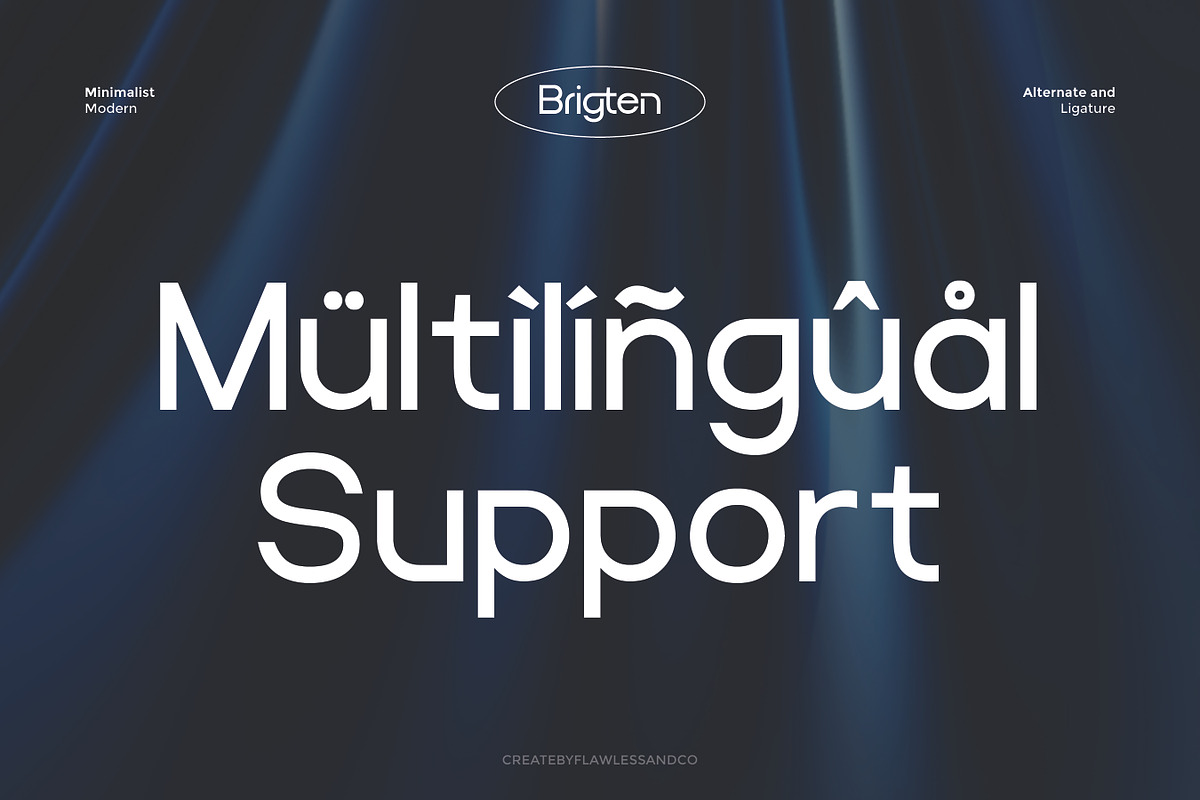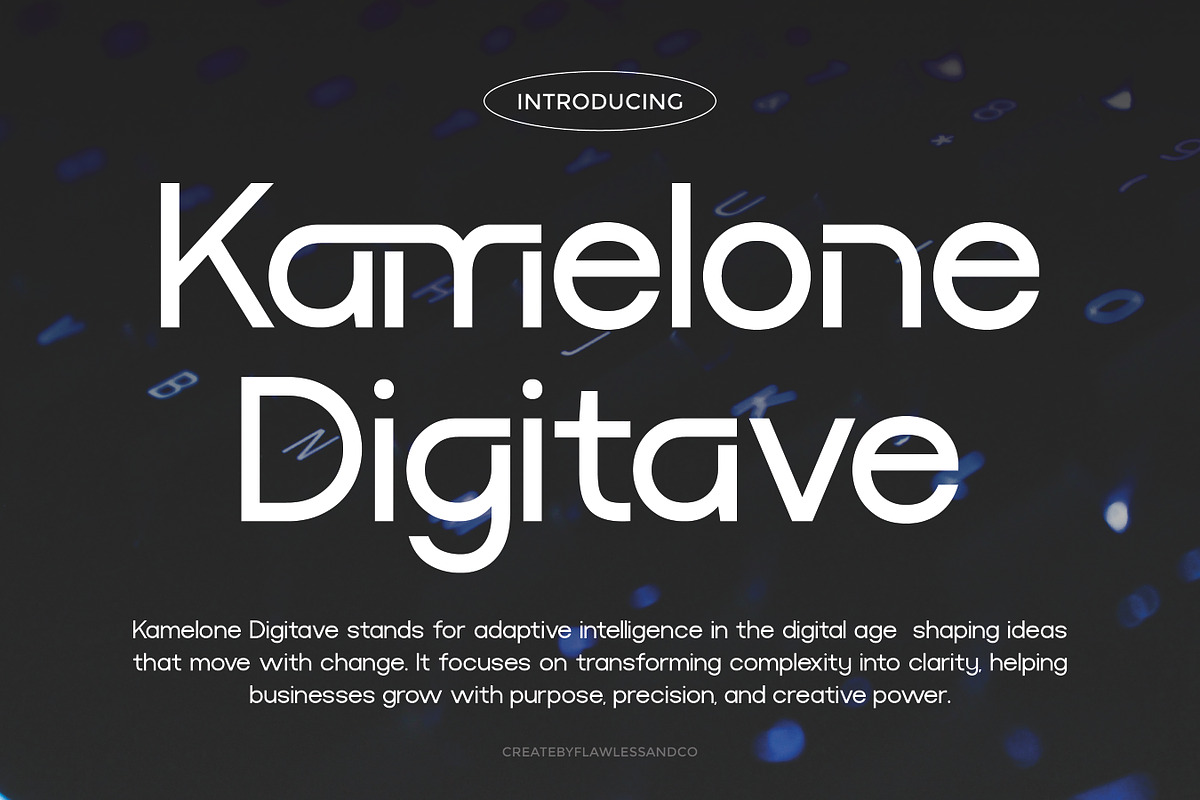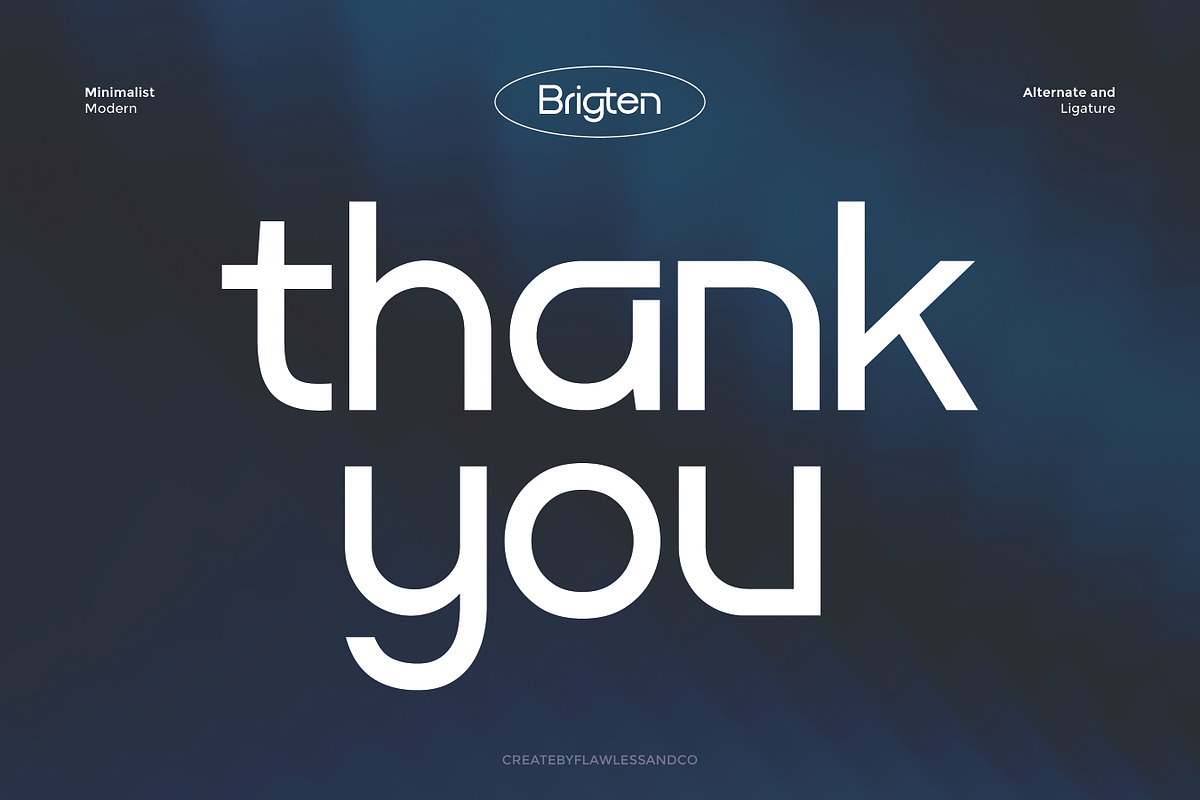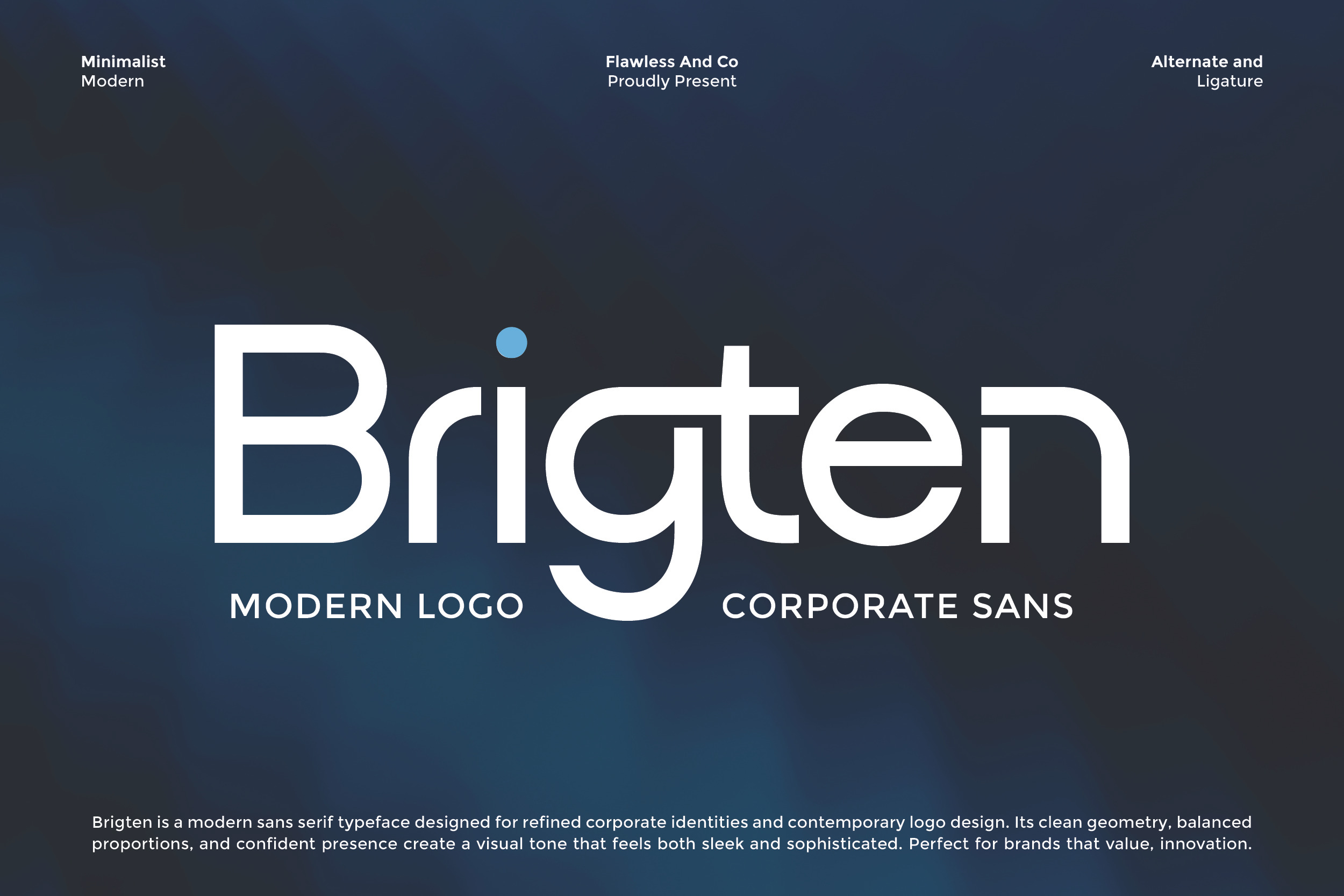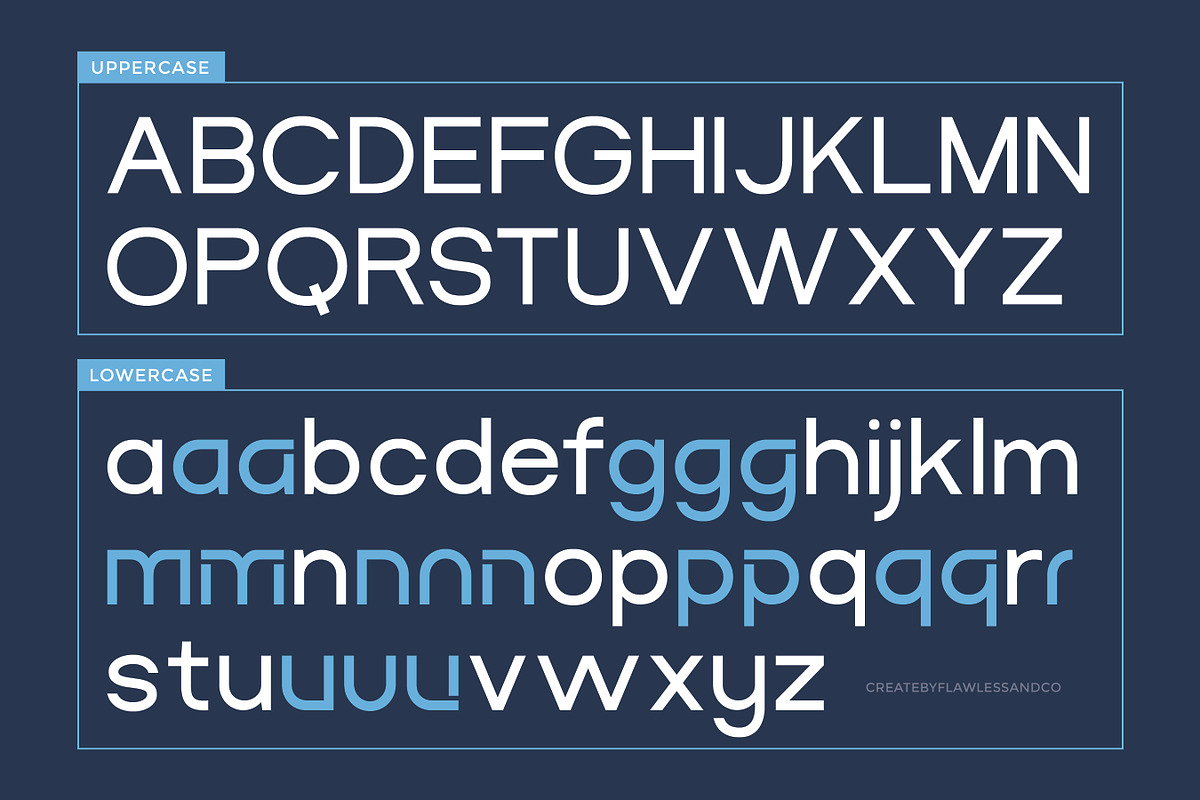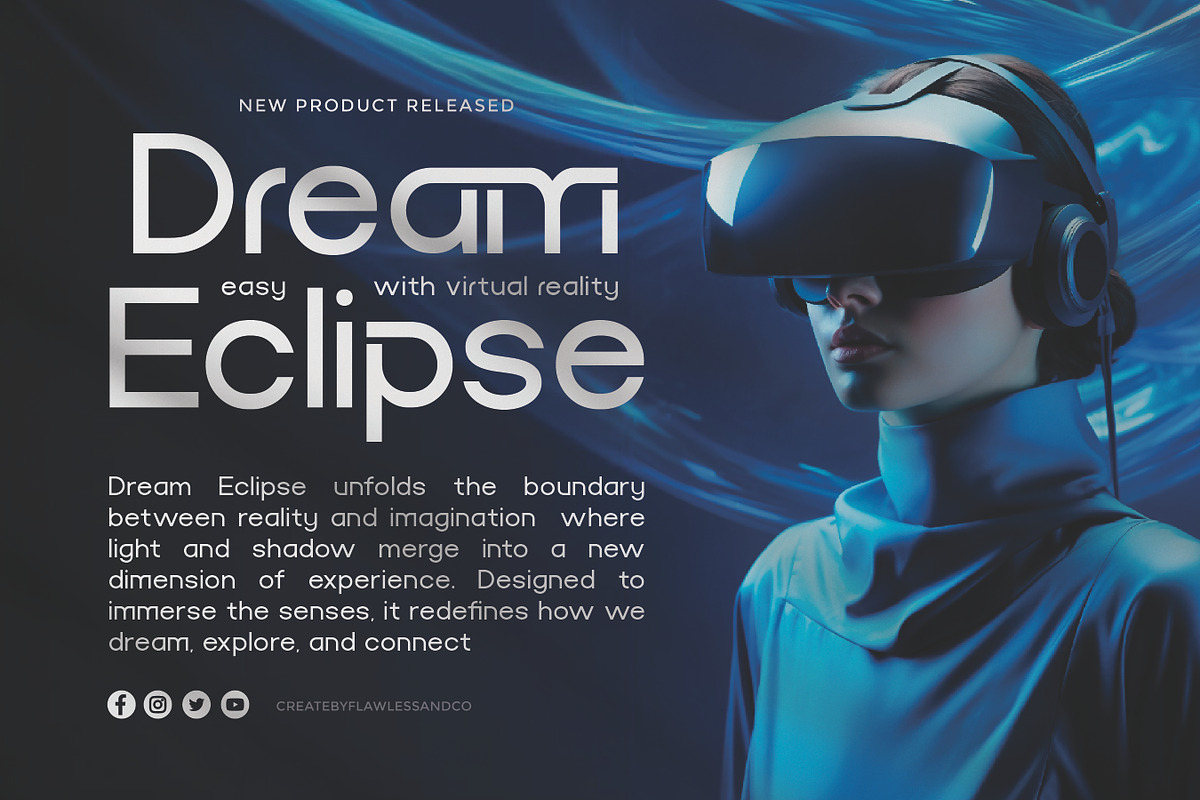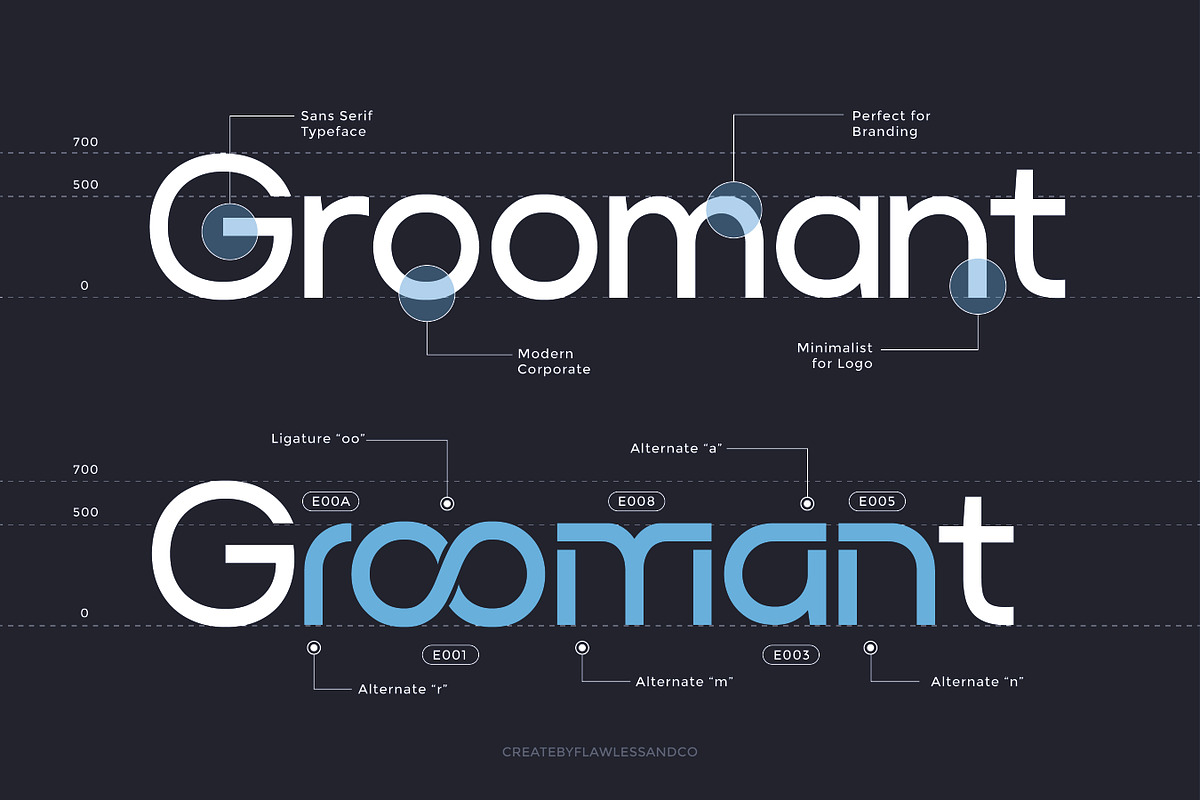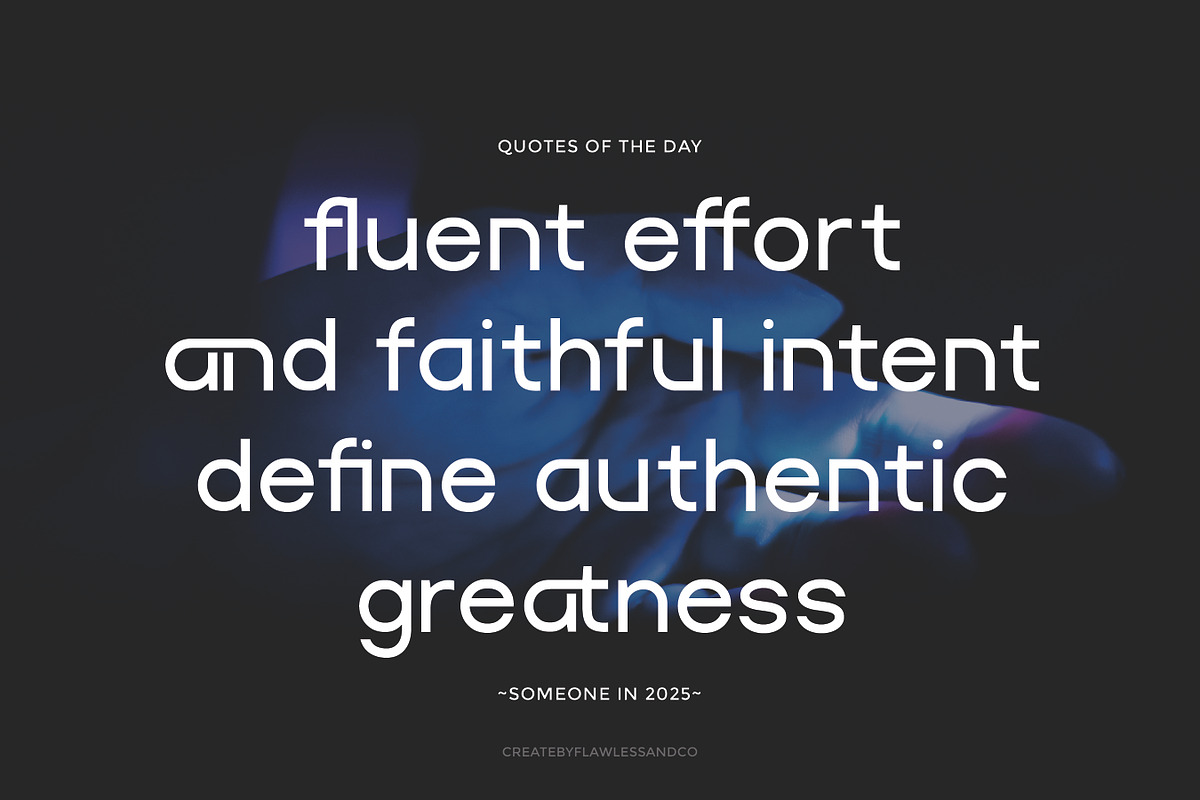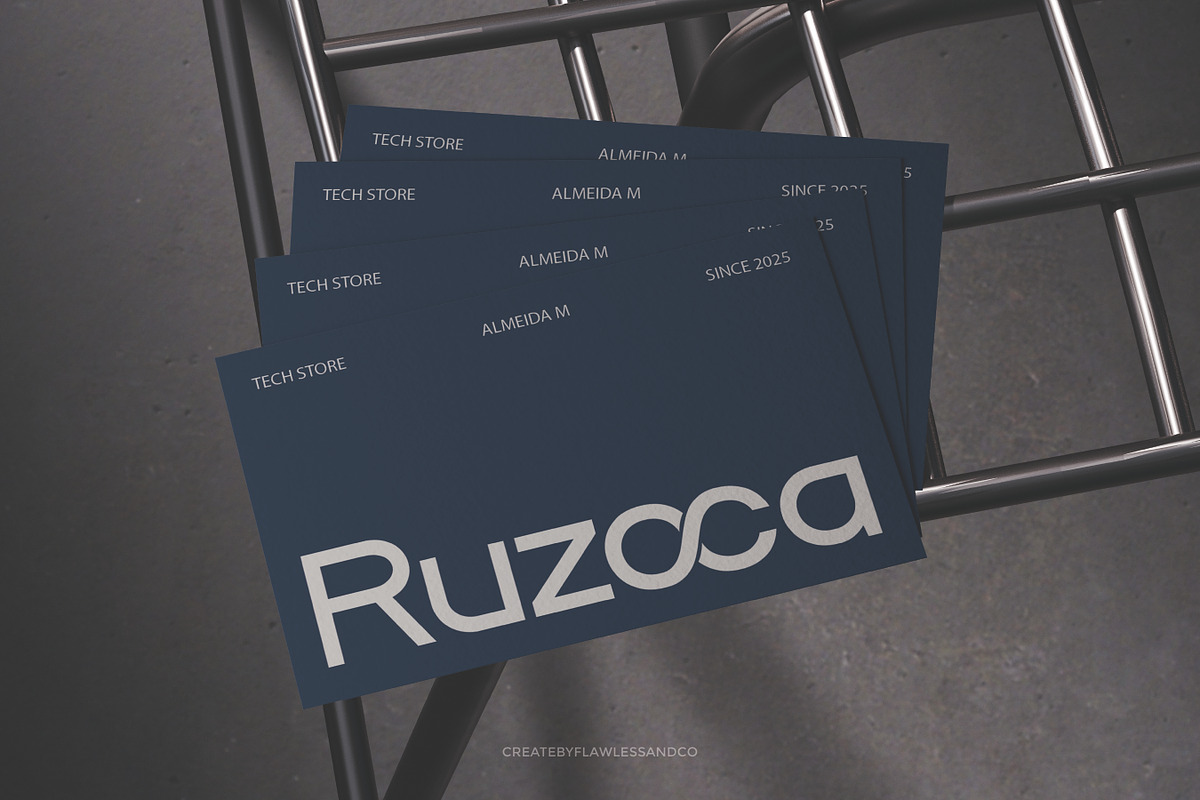
Brigten - Corporate Sans Serif Font
Brigten is a modern sans serif font crafted for professional branding, corporate identity, and sleek logo design. With its clean geometry, precise curves, and refined proportions, Brigten delivers a confident and sophisticated look that elevates any visual communication. Designed to balance modern minimalism with strong personality, this typeface works beautifully across digital and print media—creating logos, business presentations, and visual branding that feel both timeless and innovative.
Who Should Use Brigten?
Brigten is made for designers, entrepreneurs, and brand creators who value clean, professional, and forward-thinking typography. It’s perfect for those seeking to craft a modern, trustworthy, and high-end visual identity that reflects innovation and precision. Whether you’re building a corporate brand, designing a tech startup identity, or creating a minimalist logo system, Brigten provides the clarity and confidence your projects deserve.
A Must-Have Font for "Brand and Logo" Creators and Designers
Brigten is the ultimate choice for designers who aim to create professional, modern, and timeless brand identities. Its clean lines, balanced proportions, and sleek appearance make it ideal for logo design, corporate branding, and visual communication.
Why Choose Brigten for "Brand and Logo" Projects?
Brigten is more than just a font — it’s a design asset crafted for clarity, professionalism, and innovation. With its modern sans serif structure, Brigten offers a perfect blend of minimalism and confidence, making it ideal for strong and memorable brand visuals. Its clean geometry and precise letterforms enhance readability while maintaining a stylish tone, ensuring your logos and branding materials stand out in any context.
Suitable For:
- Brand identities and professional logo design
- Corporate and business branding projects
- Tech startups and modern digital platforms
- Editorial layouts and clean web design
- Presentation templates and marketing materials
- Product packaging and minimalist stationery
- Social media visuals and advertising campaigns